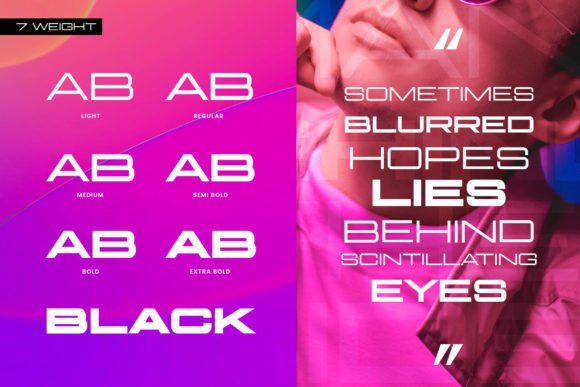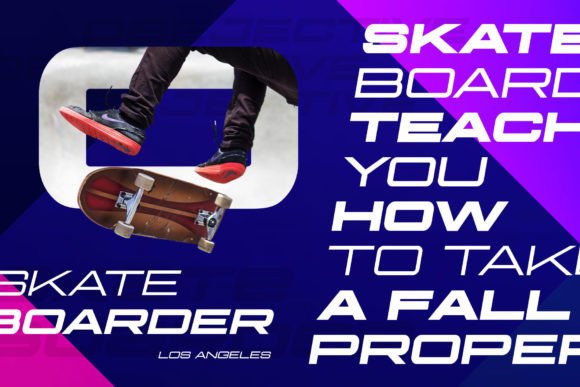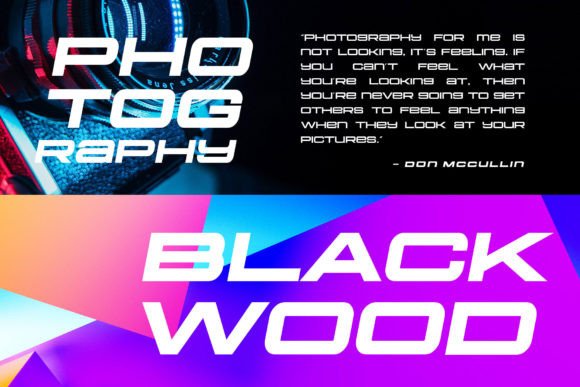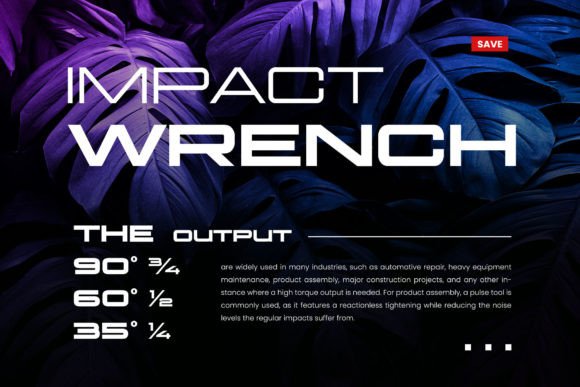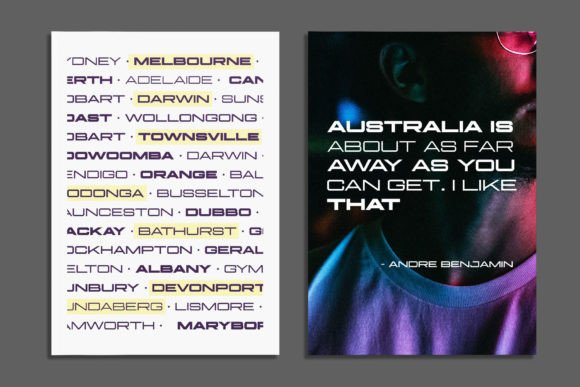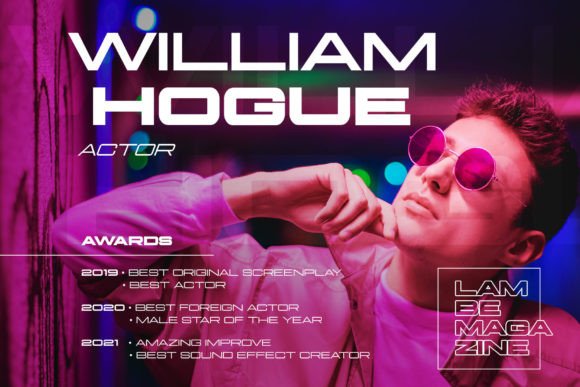
Introducing Emord Font: The Ultimate Display Font for Modern Designs
In the world of typography, fonts play a crucial role in conveying the tone and personality of a brand or design. With the ever-evolving landscape of digital design, it’s essential to have a font that can keep up with the latest trends while maintaining a strong visual identity. This is where Emord Font comes in – a cutting-edge display font that embodies the essence of modern techno-style.
The Inspiration Behind Emord Font
Emord Font is a brainchild of innovative designers who sought to create a font that exudes a sense of futurism, sportiness, elegance, and strength. By drawing inspiration from current techno-style trends, Emord Font was developed as a comprehensive font family that caters to a wide range of design needs. Whether you’re working on a bold title, a short paragraph, or a logo, Emord Font has got you covered.
Key Features of Emord Font
So, what makes Emord Font stand out from the rest? Here are some of its key features:
- Strong Letterform: Emord Font boasts a robust and sturdy letterform that screams confidence and modernity. Its unique design ensures that your text stands out, making it perfect for titles, headings, and short body text.
- 7 Weights: Emord Font comes in 7 different weights, providing you with a versatile range of options to suit your design requirements. Whether you need a light, airy feel or a bold, heavy look, Emord Font has the perfect weight for you.
- All-Caps Font: Emord Font is an all-caps font, making it ideal for titling, short body text, books, quotes, logotypes, and more. Its all-caps design ensures that your text exudes a sense of grandeur and sophistication.
- Display and Paragraph Text: Emord Font is designed to work seamlessly as both display text and paragraph text. This means you can use it for headlines, titles, and short paragraphs, making it a one-stop solution for all your typography needs.
Who Can Benefit from Emord Font?
Emord Font is a versatile font that can be used by a wide range of designers and crafters, including:
- Graphic Designers: Emord Font is perfect for graphic designers who need a modern, bold font for their designs. Its strong letterform and range of weights make it an excellent choice for logos, brochures, and other marketing materials.
- UI/UX Designers: Emord Font is an excellent choice for UI/UX designers who need a font that can work seamlessly across different digital platforms. Its clean design and versatility make it perfect for mobile apps, websites, and other digital products.
- Book Publishers: Emord Font is a great option for book publishers who need a font that can add a touch of elegance and sophistication to their publications. Its all-caps design and range of weights make it perfect for titles, headings, and short paragraphs.
- Crafters and Makers: Emord Font is also perfect for crafters and makers who need a font that can add a personal touch to their products. Whether you’re creating handmade cards, artisanal goods, or DIY projects, Emord Font can help you add a professional touch to your creations.
In conclusion, Emord Font is a powerful display font that can elevate your designs to the next level. Its strong letterform, range of weights, and all-caps design make it perfect for a wide range of applications, from graphic design and UI/UX design to book publishing and crafting. With Emord Font, you can add a touch of modernity, elegance, and sophistication to your designs, making it an excellent addition to your typography toolkit.